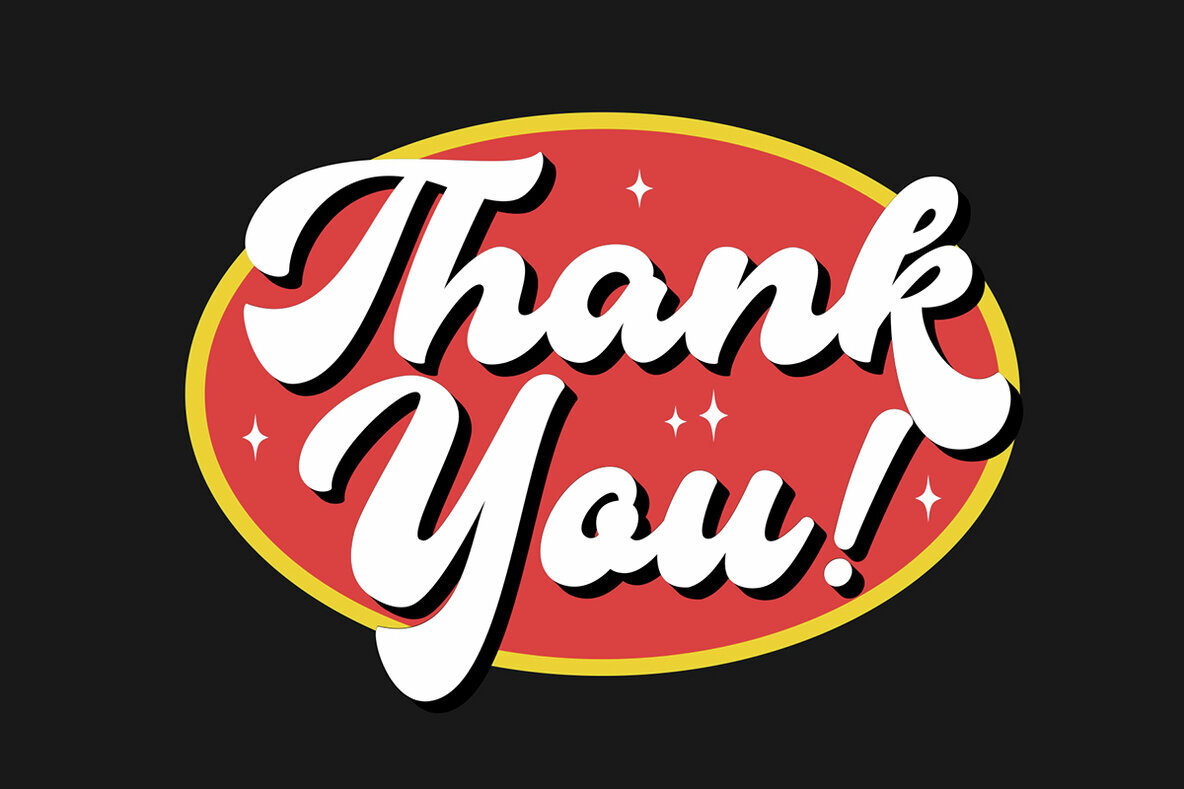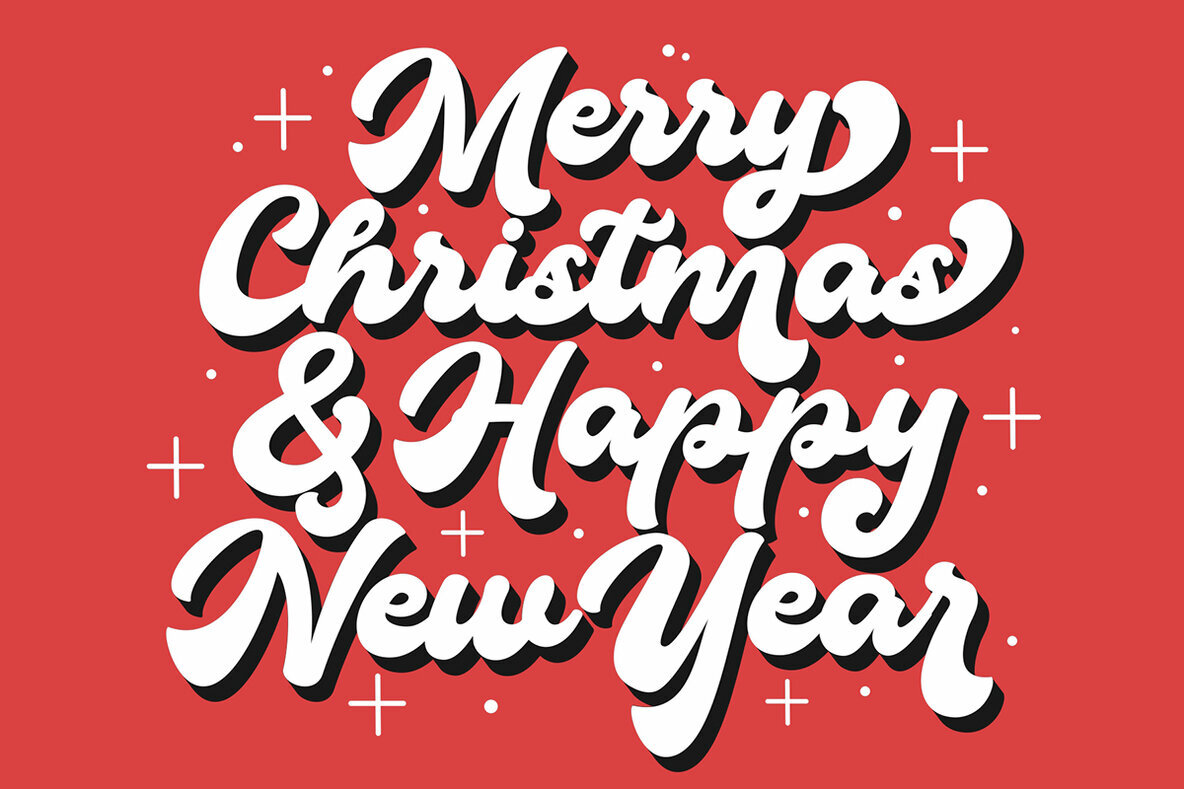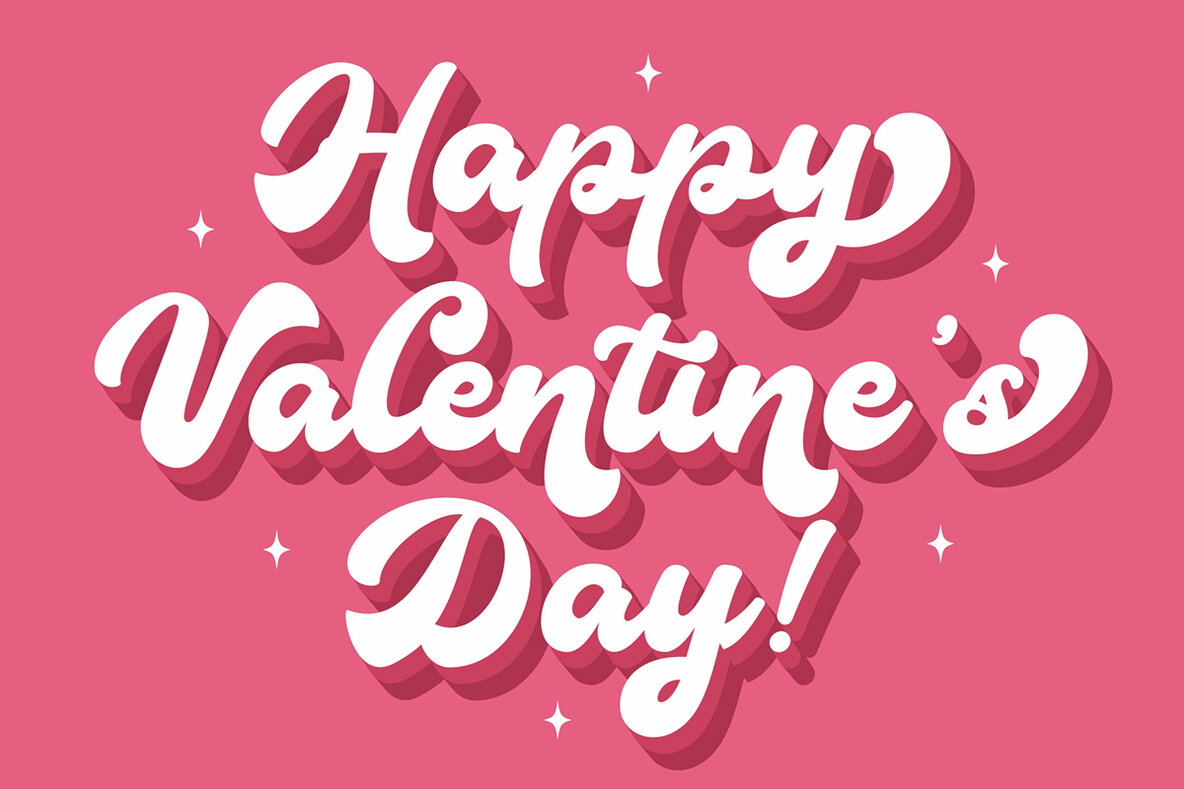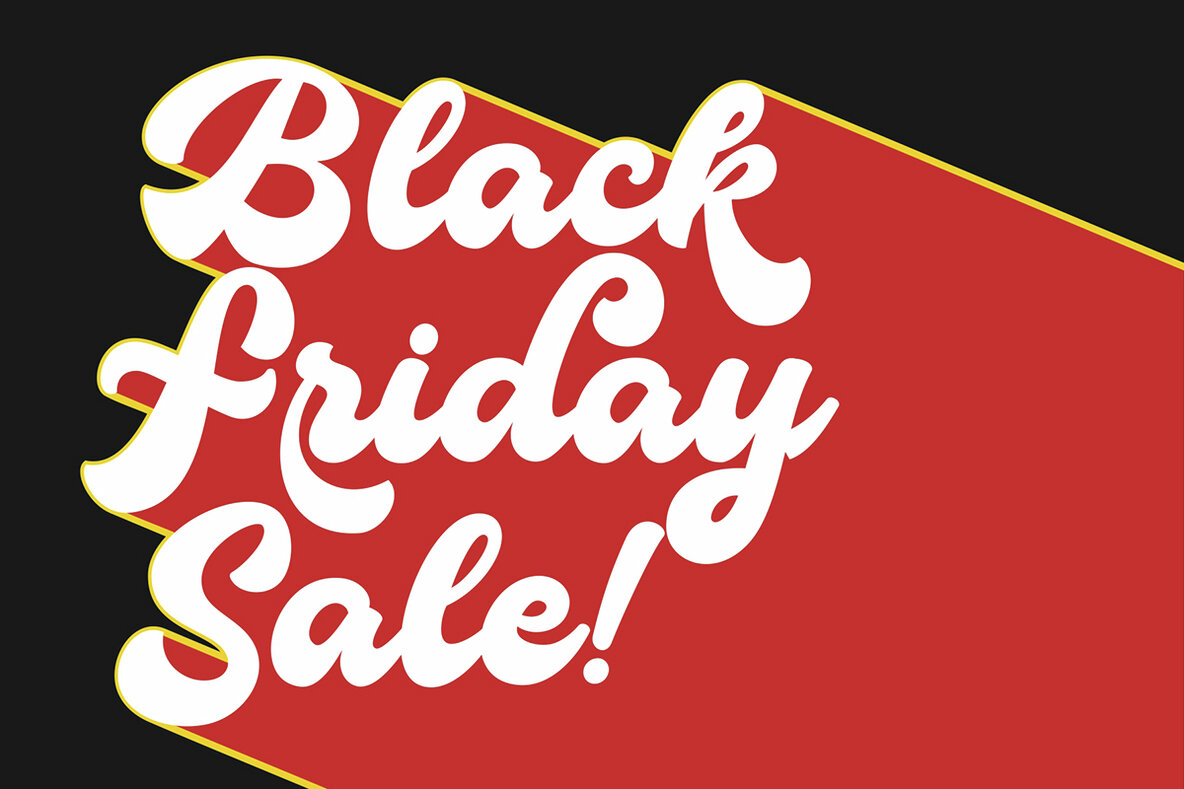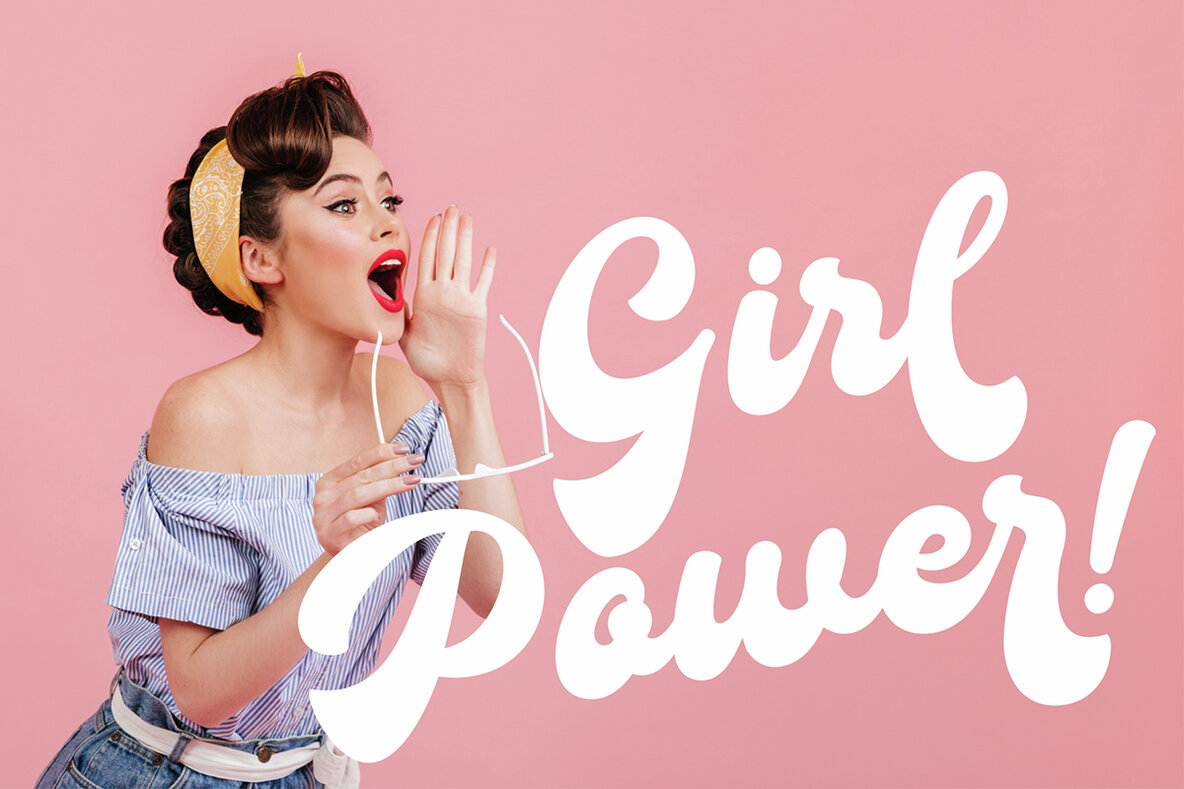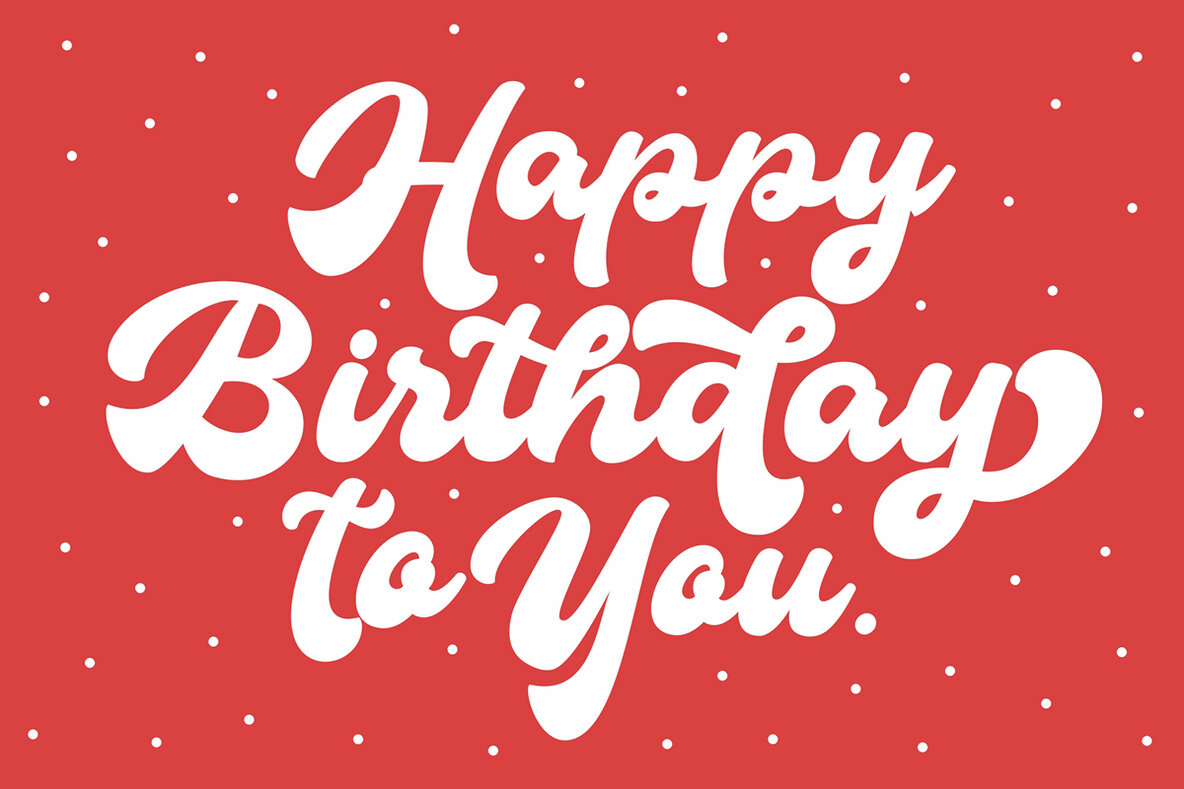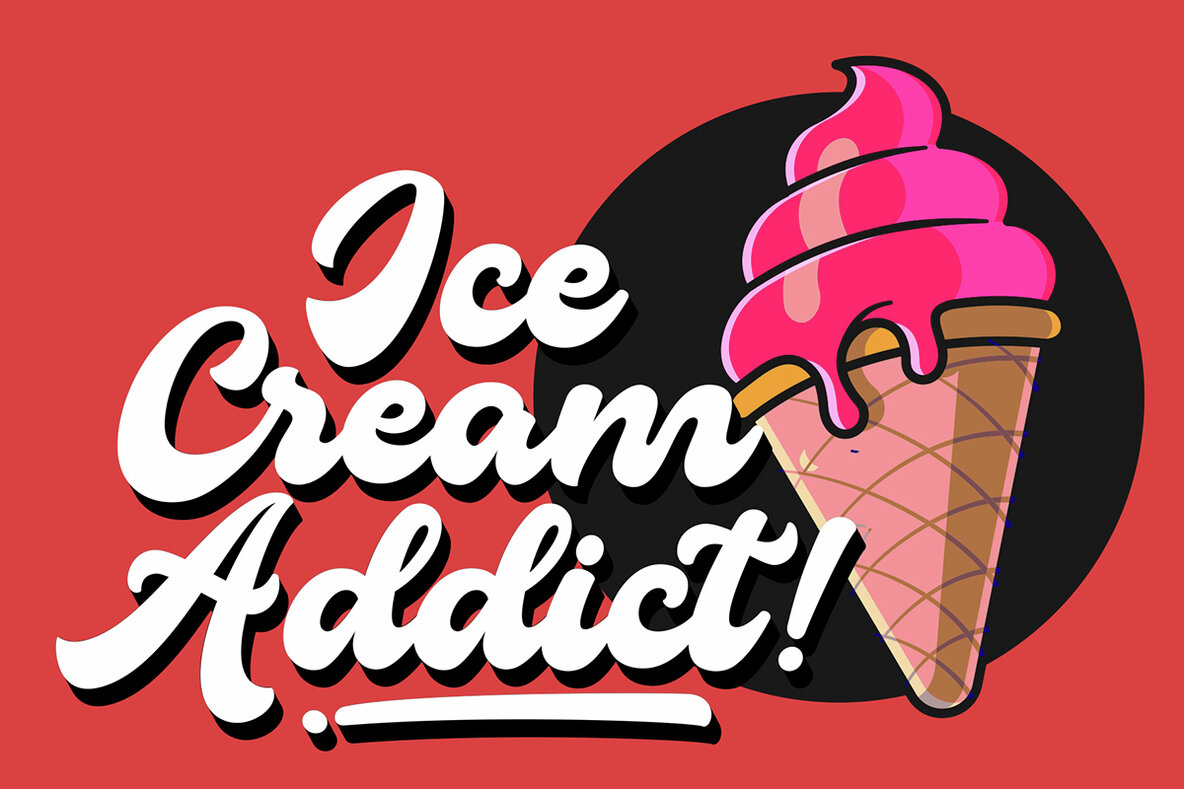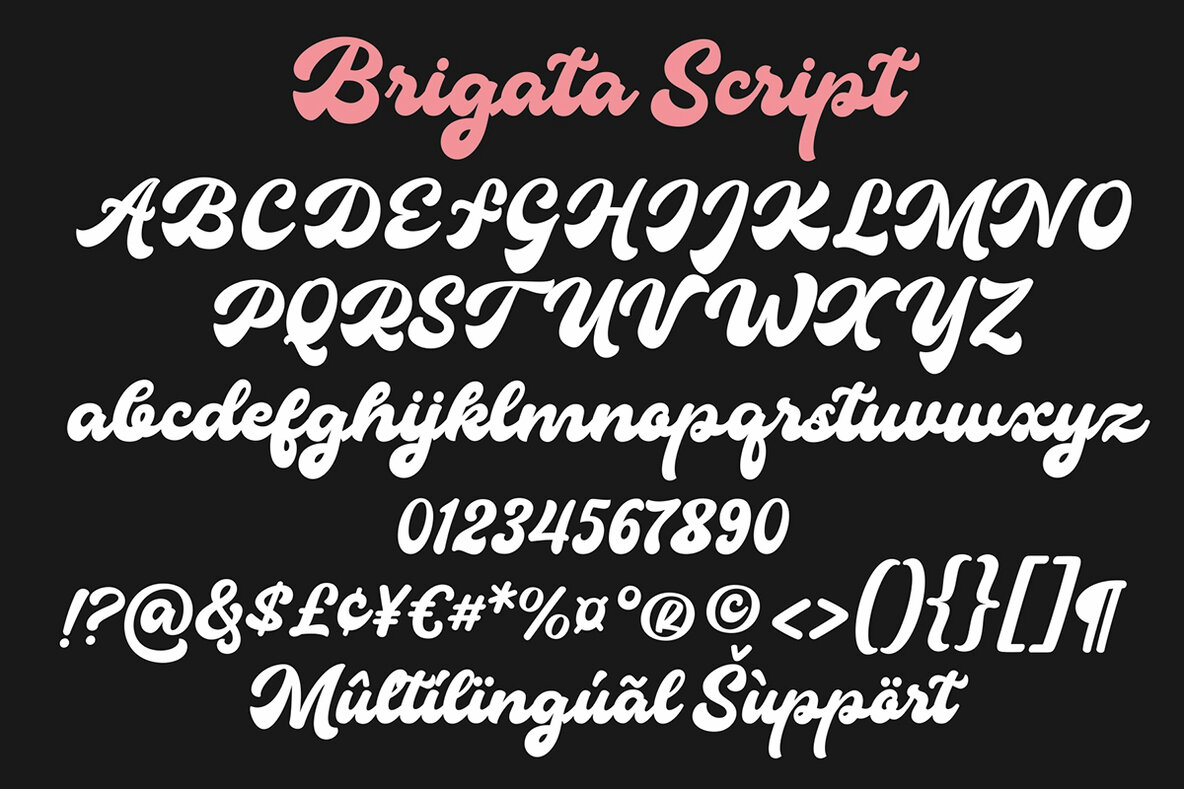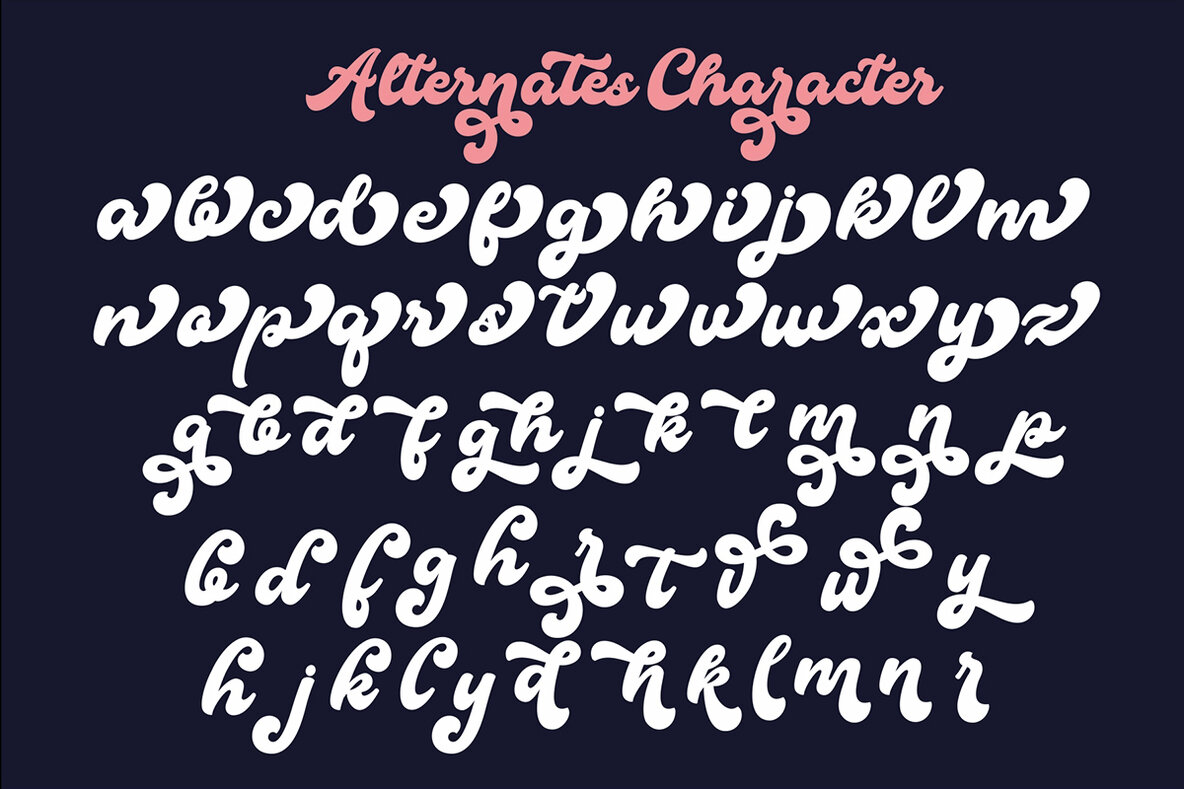
Brigata Script Font
Brigata Script
This bold and flowing script font features a handwritten style that is both elegant and decorative. Perfect for retro and stylish design projects, it adds a smooth, cursive flair to any headline, display, branding, or logotype work. Its curvy and artistic nature also makes it ideal for fashionable and vintage themes, providing an inviting and eye-catching element.